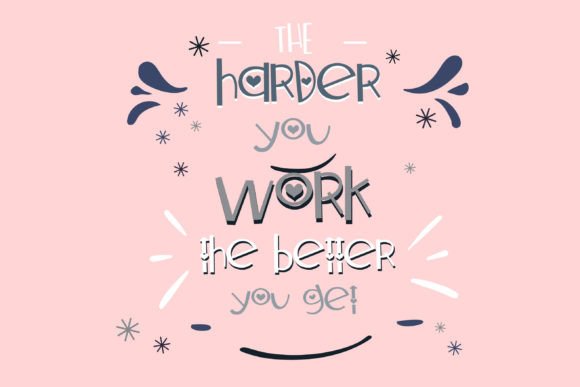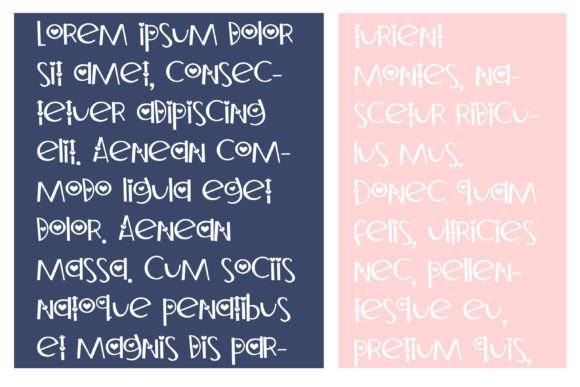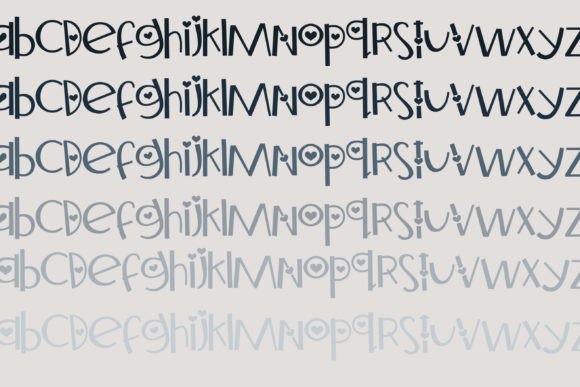
Dorky Devoted Font
About the Dorky Devoted Font
Make a bold statement with Dorky Devoted Font, a powerful and memorable font. This hand-crafted font is a whimsy sans serif with hearts throughout. No matter the topic, this font will be an incredible asset to your fonts’ library, as it has the potential to elevate any creation.
Dorky Devoted Font’s playful nature makes it ideal for projects requiring a friendly, approachable aesthetic. It works exceptionally well in headlines, short-form text on social media graphics, branding for children’s products, or packaging for sweet treats. However, its whimsical design and varied letterforms make it unsuitable for body text or long paragraphs; readability suffers at smaller sizes.
This font pairs well with clean, geometric sans-serifs like Futura or Lato for a balanced contrast. For a softer feel, consider pairing it with a delicate script font such as Allura. Using a classic serif like Garamond alongside Dorky Devoted provides a sophisticated juxtaposition, allowing the playful font to stand out.
The overall personality is lighthearted and charming, conveying a sense of fun and approachability without being childish.